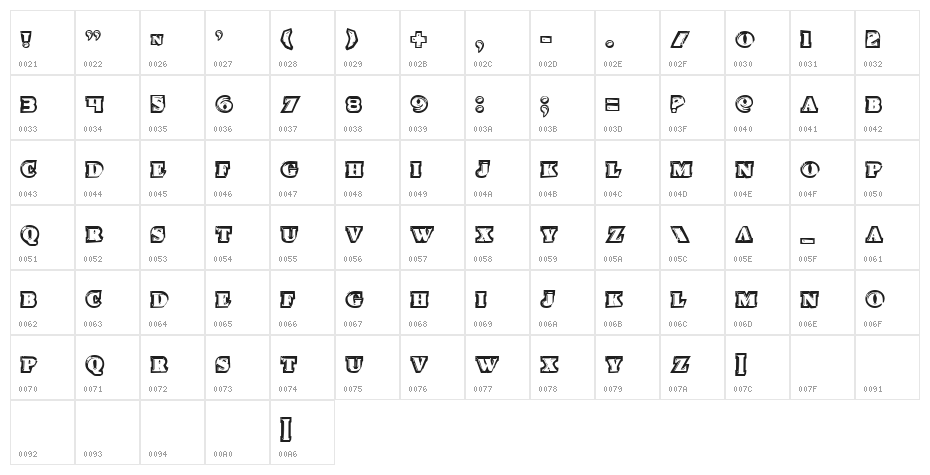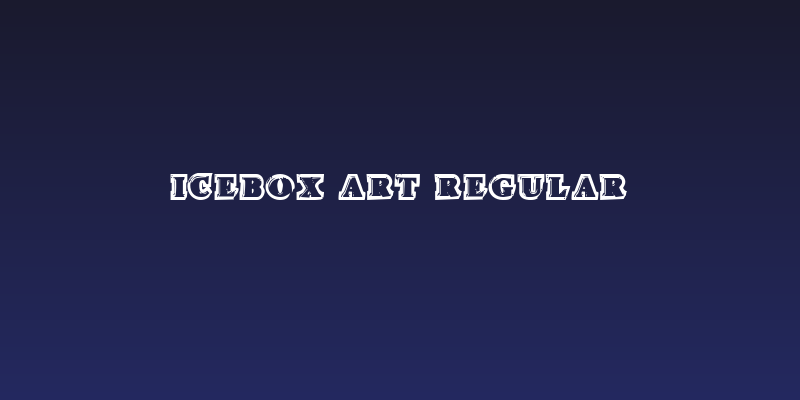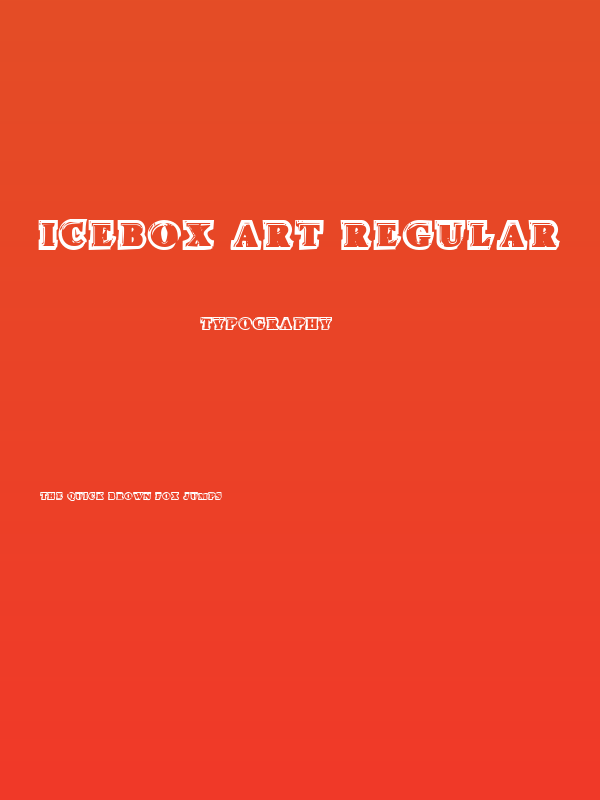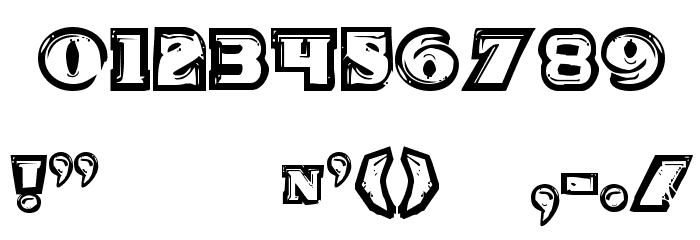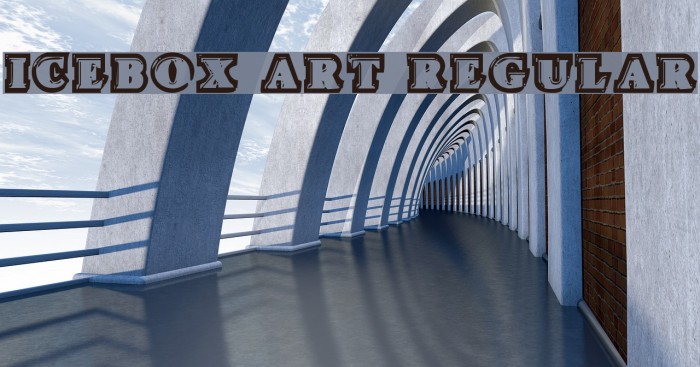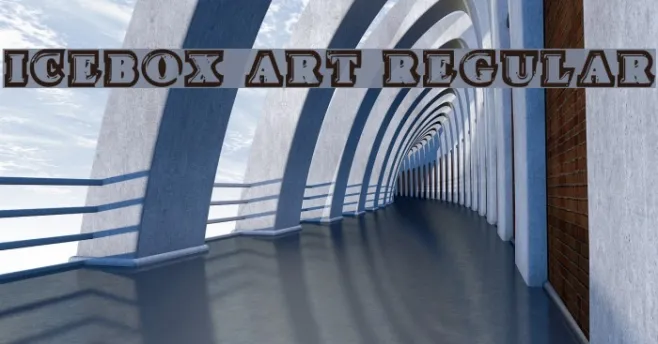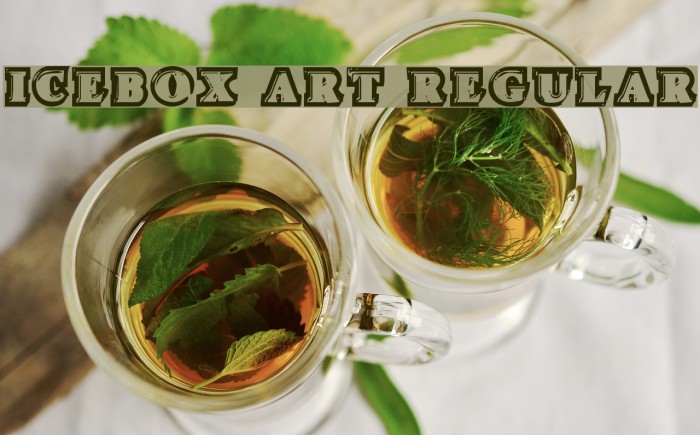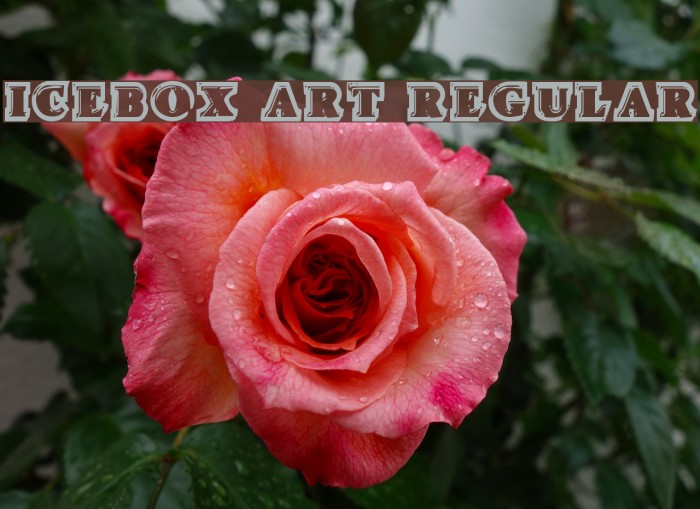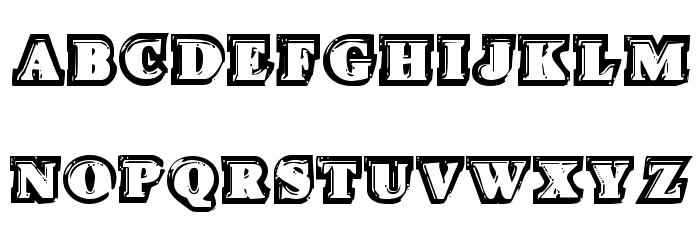
Icebox Art Regular Font
Icebox Art Regular Description
This font features a bold, decorative style with a three-dimensional effect that gives it a striking appearance. The letters are uppercase with a shadowed outline that adds depth and character. The design is reminiscent of vintage signage or retro posters, making it ideal for projects that require a bold statement. The numbers and special characters maintain the same stylistic elements, ensuring consistency across all text elements. The font's unique style makes it stand out, perfect for creative and eye-catching designs.
| Proposed Projects | Ideal for posters, logos, headlines, and any design requiring a bold, vintage aesthetic. |